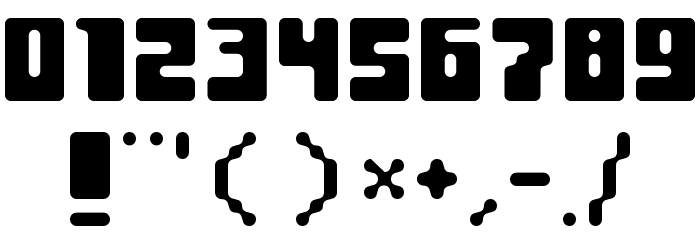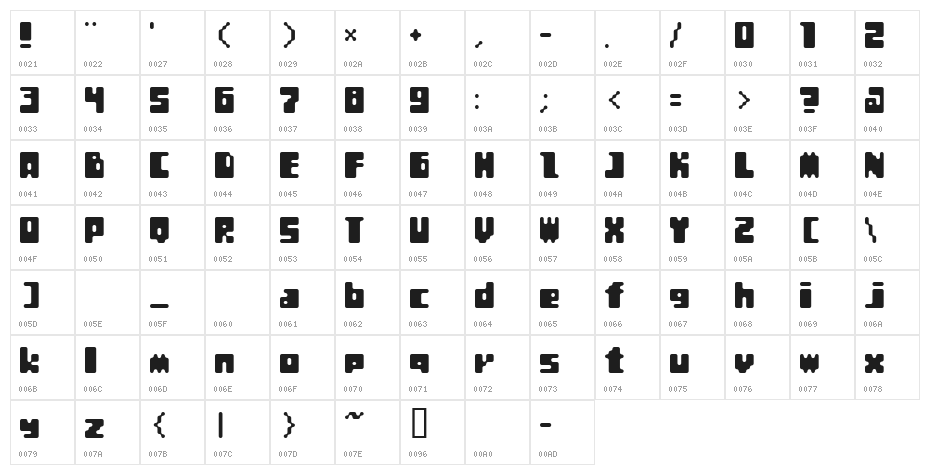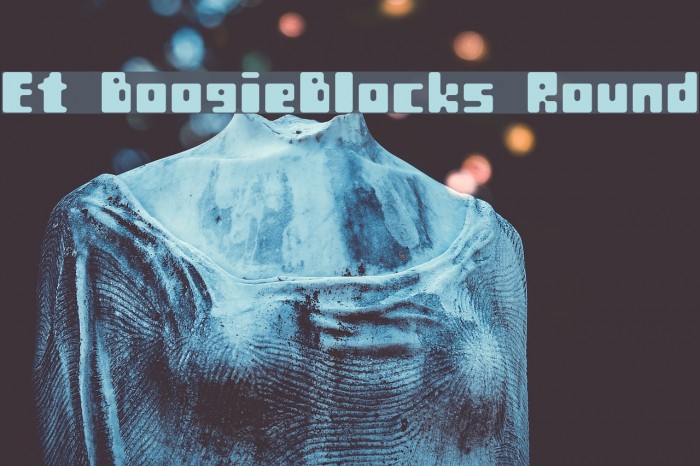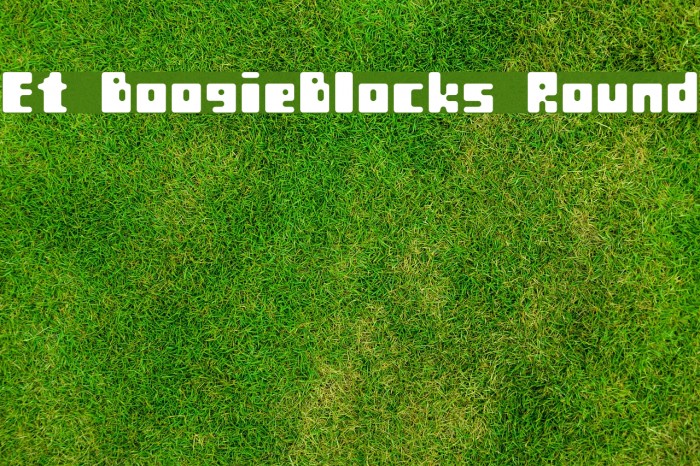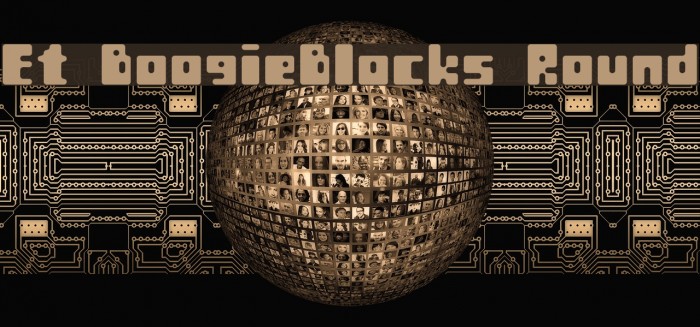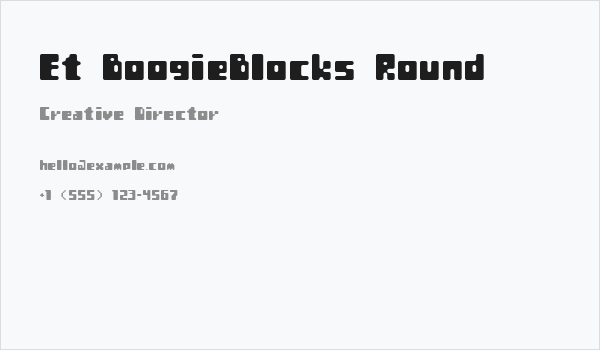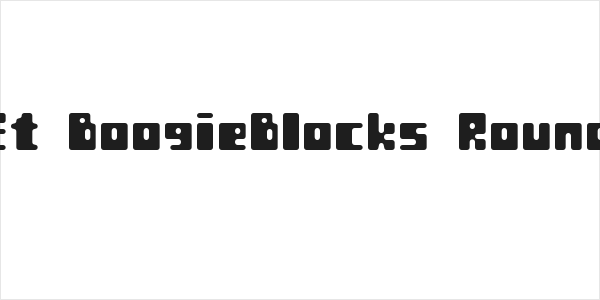
Et BoogieBlocks Round Font
Et BoogieBlocks Round Description
This font features a bold and playful design with rounded edges and a blocky structure. Each character is crafted with a consistent thickness, giving it a strong and impactful appearance. The uppercase and lowercase letters maintain a uniform style, while the numbers and special characters complement the overall aesthetic. The font's unique shape and style make it stand out, with a modern and slightly whimsical feel. It's perfect for projects that require a fun and engaging typeface, such as children's books, playful branding, or eye-catching headlines.
| Overall Style | Modern, Playful |
| Proposed Projects | Ideal for children's books, playful branding, eye-catching headlines, and creative posters. |